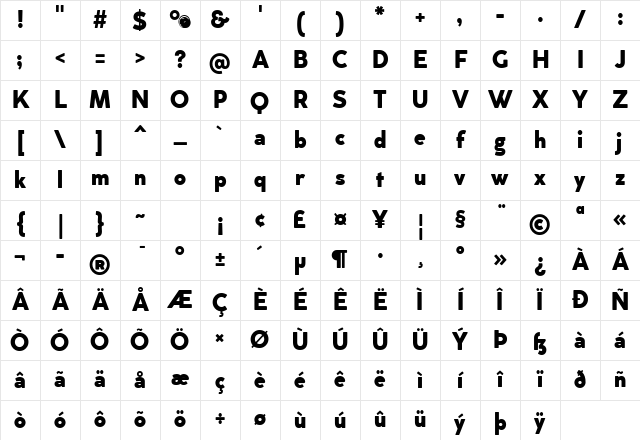
Cocogoose Classic Trial ExtraBold Free Font
Cocogoose Classic Trial ExtraBold
Foundry: Zetafonts
Designer: Cosimo Lorenzo Pancini, Francesco Canovaro
Design Context for Cocogoose Classic Trial
Cocogoose Classic Trial wears its vintage influences proudly, with letterforms that recall mid-century signage, classic packaging, and nostalgia-driven design. Its bold stroke weight gives it real presence on the page.
Font Pairing: Combine Cocogoose Classic Trial with a simple slab or neutral sans - period-accurate companions reinforce the vintage feel without competing for attention.
Pro Tip: Lean into Cocogoose Classic Trial's period character by pairing it with aged paper textures, muted colour palettes, and vintage illustration styles.